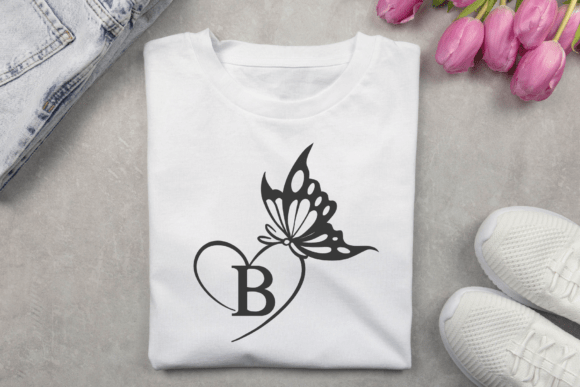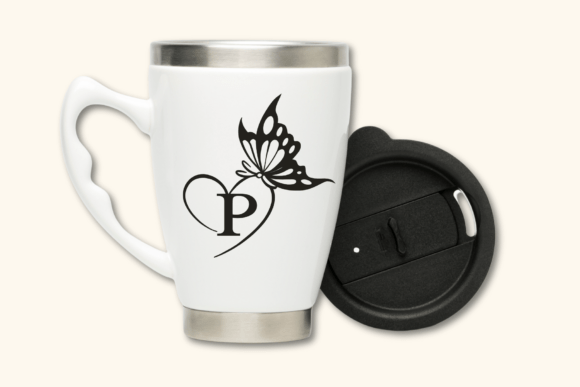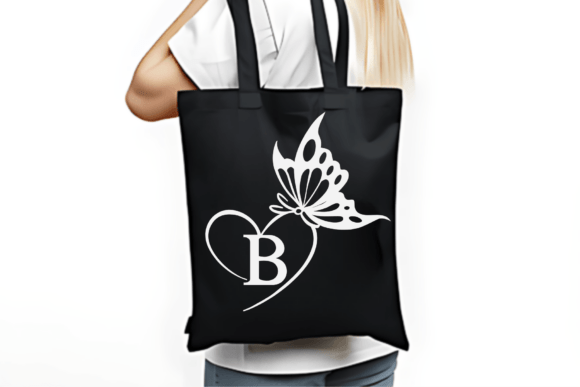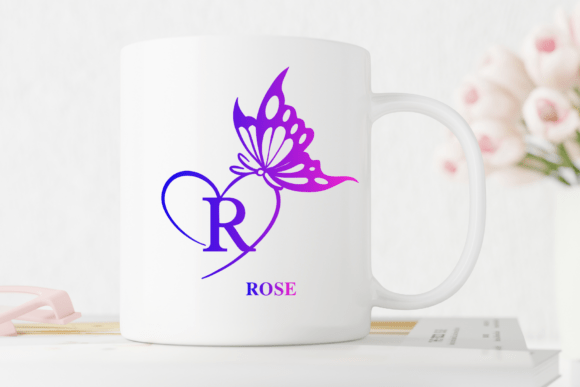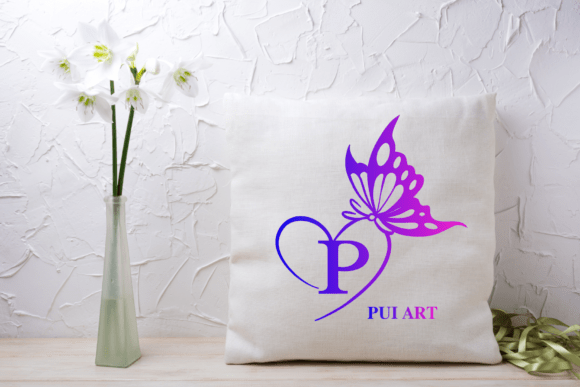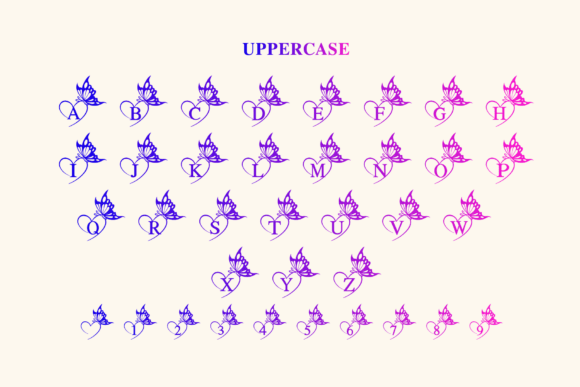
Introducing Butterfly Lover Font: Where Hearts Meet Wings
Are you a designer, crafter, or artist looking for a font that embodies love, art, and elegance? Look no further than Butterfly Lover Font, a stunning decorative typeface that captures the beauty of romance and sophistication. With its delicate butterfly-inspired details, this font is perfect for adding a touch of whimsy and charm to any design.
The Beauty of Butterfly Lover Font
Butterfly Lover Font is a masterful creation that combines the elegance of calligraphy with the playfulness of butterfly-inspired illustrations. Each letter is carefully crafted to resemble the intricate details of a butterfly’s wings, making it a true masterpiece of font design. The result is a font that exudes romance, sophistication, and a touch of magic.
Perfect for Love-Themed Designs
Whether you’re designing wedding invitations, love-themed crafts, logos, or greeting cards, Butterfly Lover Font is the perfect choice. Its delicate and enchanting design adds a dreamy charm to any project, making it ideal for:
- Love-themed crafts and DIY projects
- Logos and branding for romantic businesses
- Any design that requires a touch of elegance and romance
Key Features of Butterfly Lover Font
So, what makes Butterfly Lover Font so special? Here are some of its key features:
- Delicate butterfly-inspired details
- Elegant and sophisticated design
- Perfect for love-themed designs and romantic projects
- Easy to use and pair with other fonts
- Scalable and versatile for various design applications
Tips for Using Butterfly Lover Font
To get the most out of Butterfly Lover Font, here are some tips for using it in your designs:
- Pair it with complementary fonts to create a unique and harmonious design
- Use it as a headline font to add a touch of elegance and sophistication
- Experiment with different colors and textures to enhance the font’s romantic feel
- Don’t be afraid to get creative and add your own personal touches to the design
Where to Use Butterfly Lover Font
Butterfly Lover Font is versatile and can be used in a variety of design applications, including:
- Digital designs: social media graphics, blog posts, and website headers
- Print designs: business cards, brochures, and flyers
- Crafts: scrapbooking, card making, and DIY projects
- Branding: logos, packaging, and product labels
In conclusion, Butterfly Lover Font is a beautiful and elegant decorative typeface that adds a touch of romance and sophistication to any design. With its delicate butterfly-inspired details and versatile design, it’s perfect for designers, crafters, and artists looking to create stunning love-themed designs. So, let your creativity take flight with Butterfly Lover Font and bring love, art, and elegance to every letter.